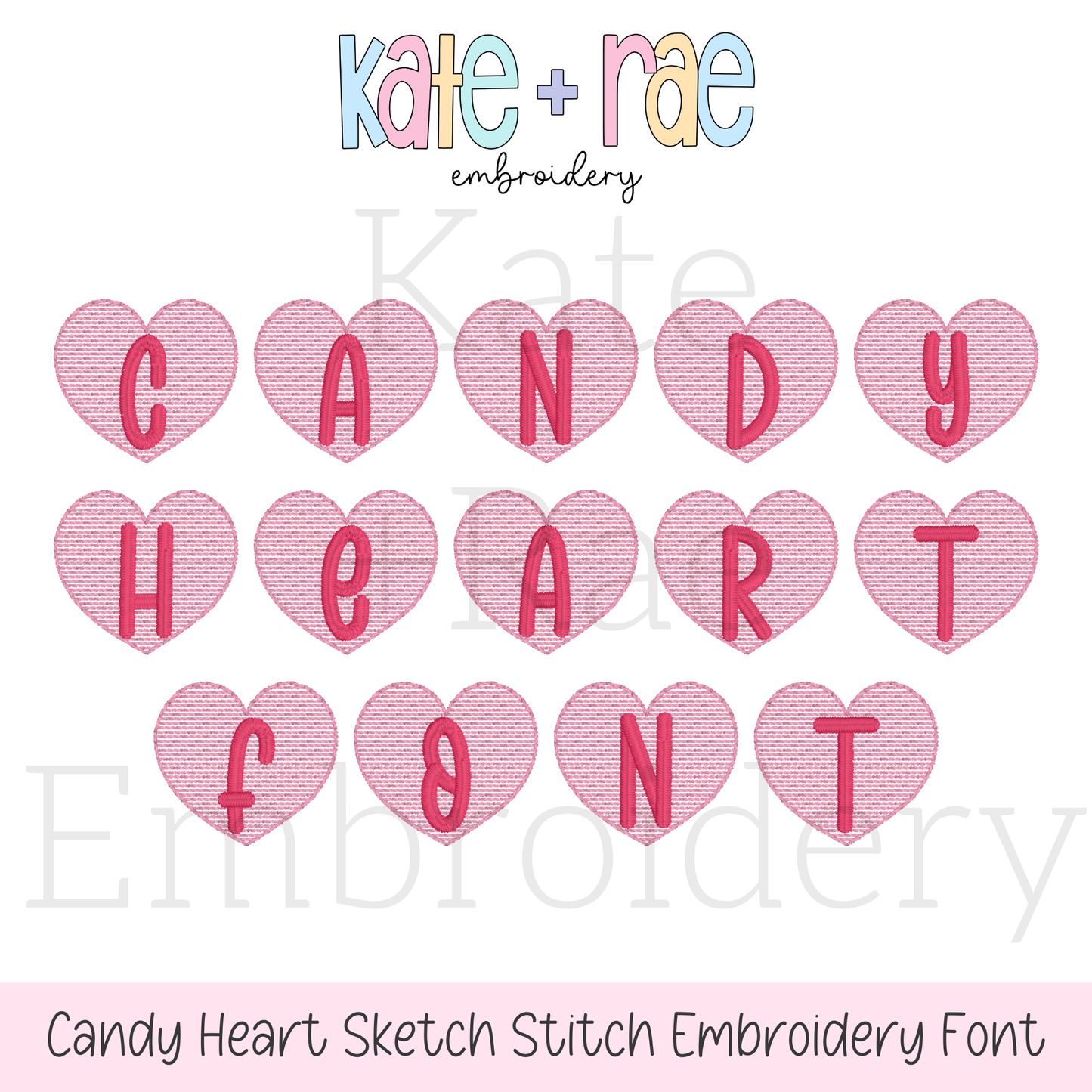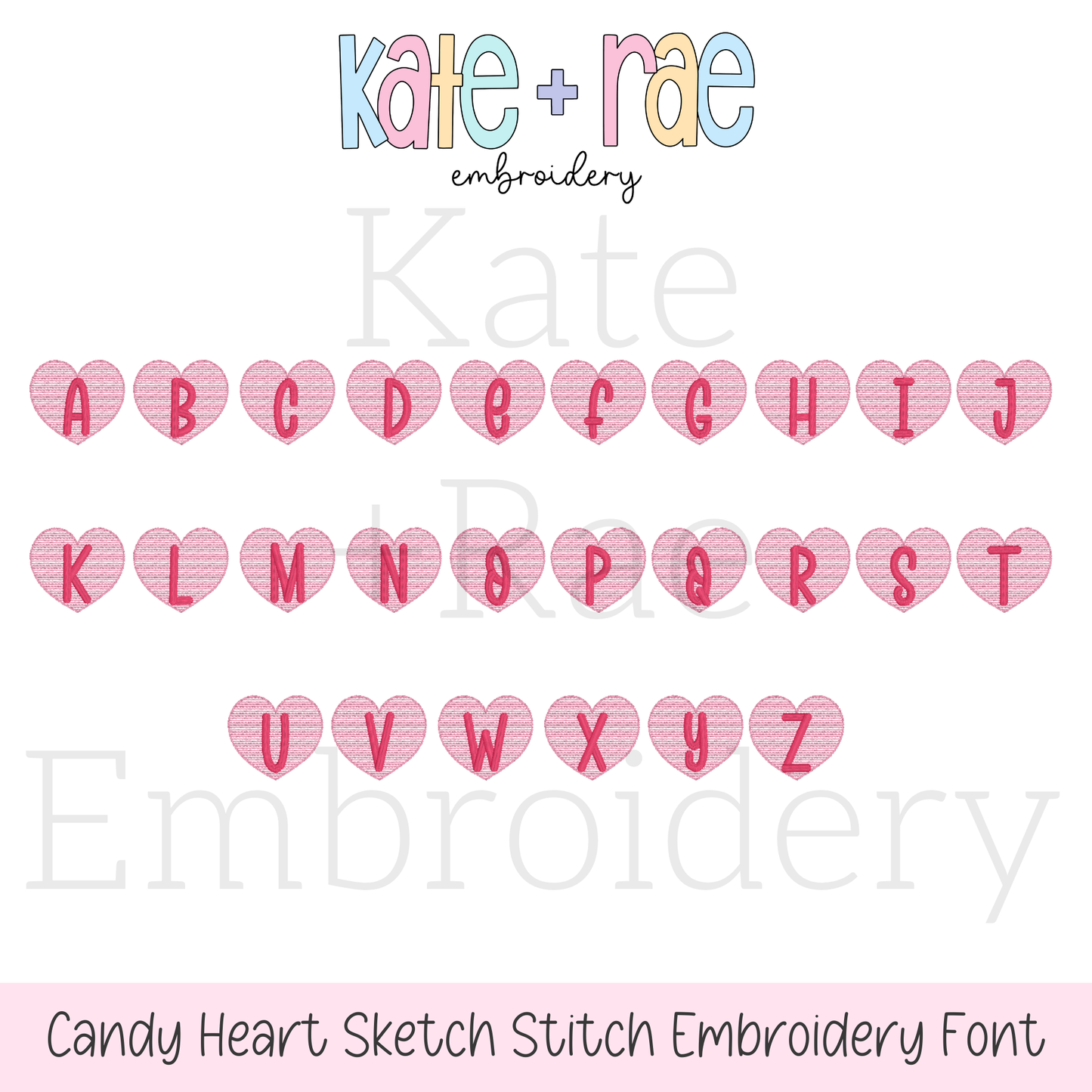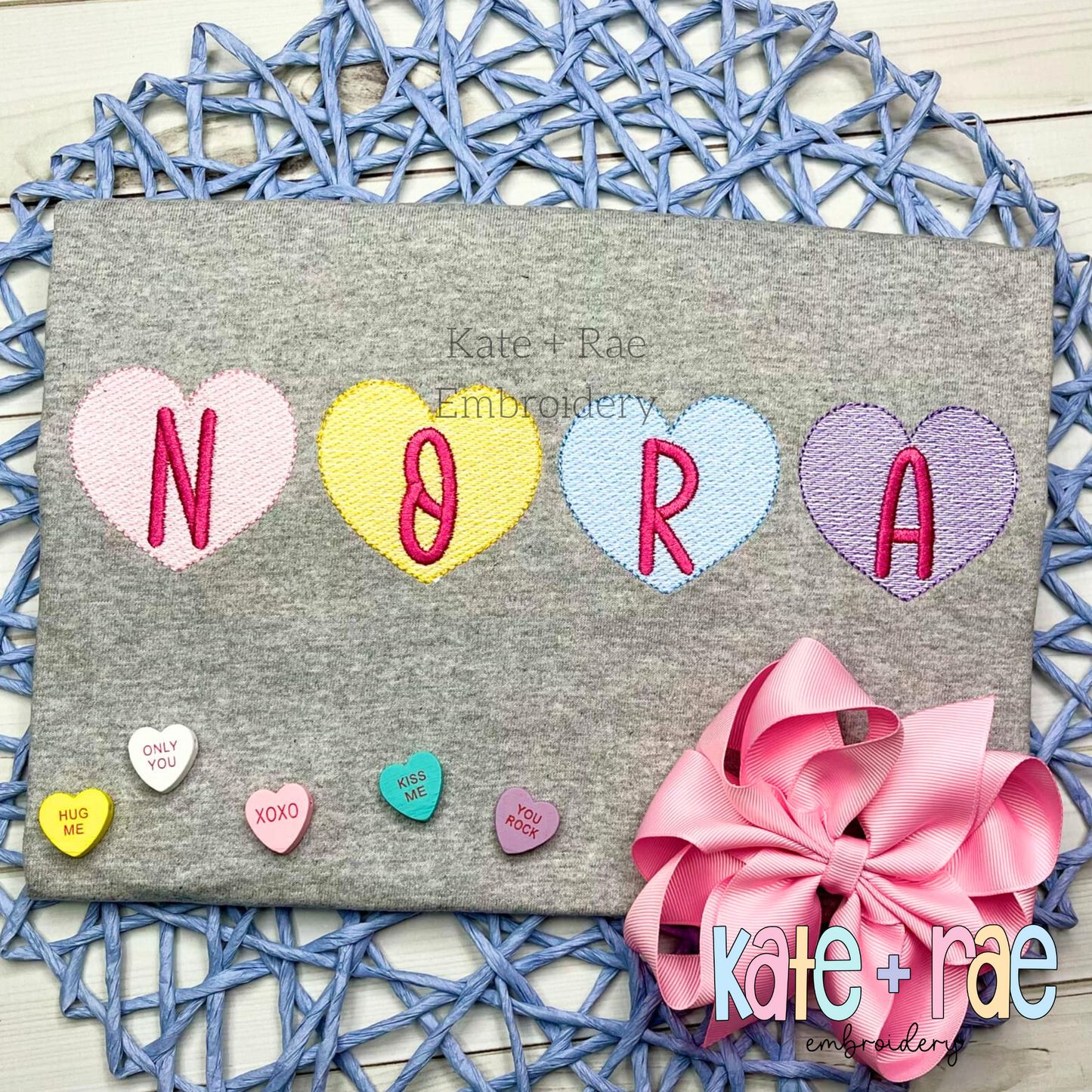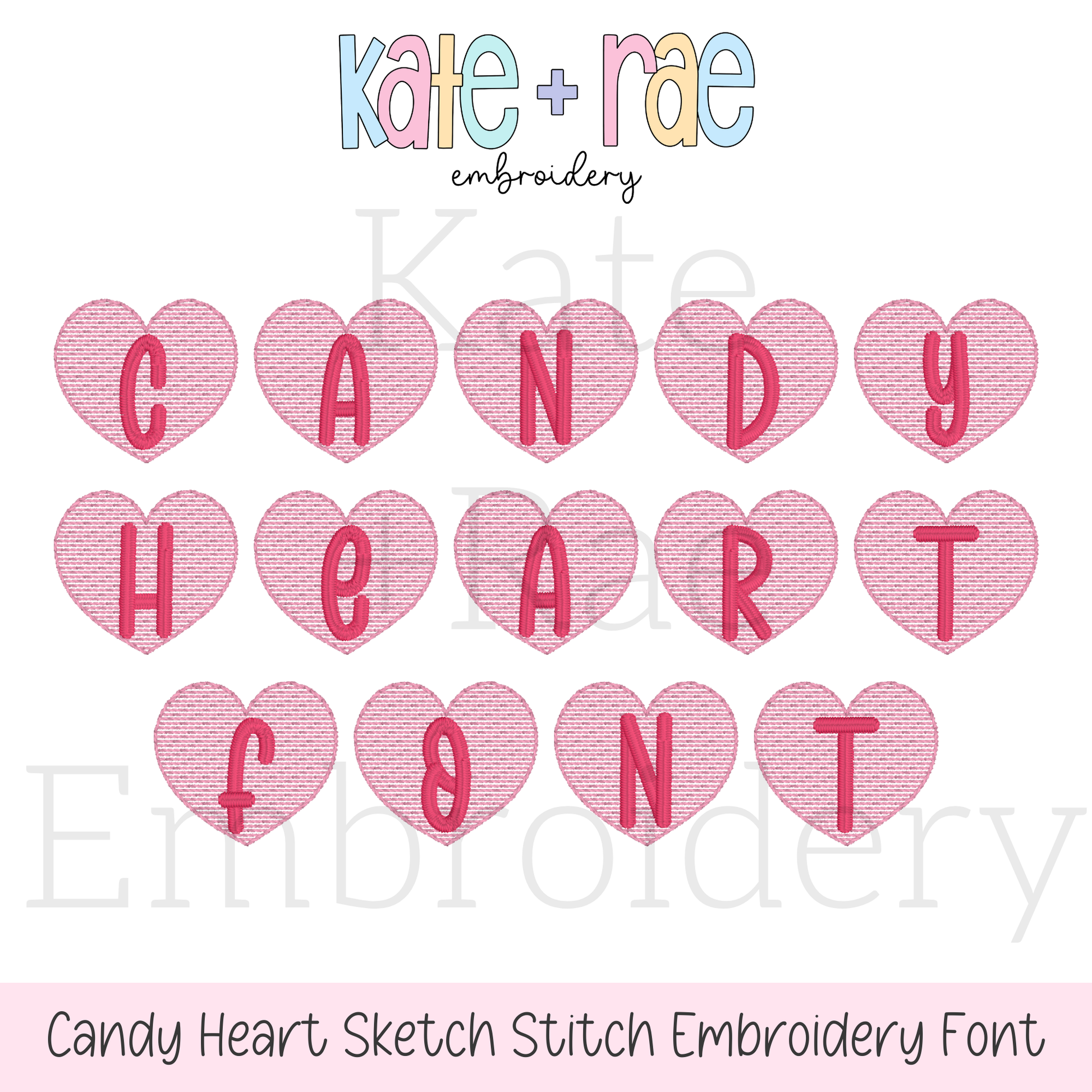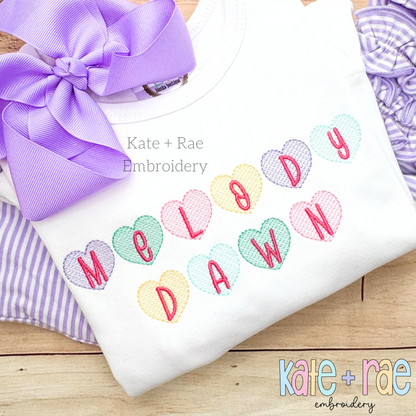
Candy Heart Sketch Stitch Embroidery Font: Pastel candy hearts with pink letters spelling Melody Dawn on a white shirt
Candy Heart Sketch Stitch Embroidery Font
Spell out sweet messages with the Candy Heart sketch stitch font! It's perfect for Valentine's names, class party shirts, and sweet gifts.